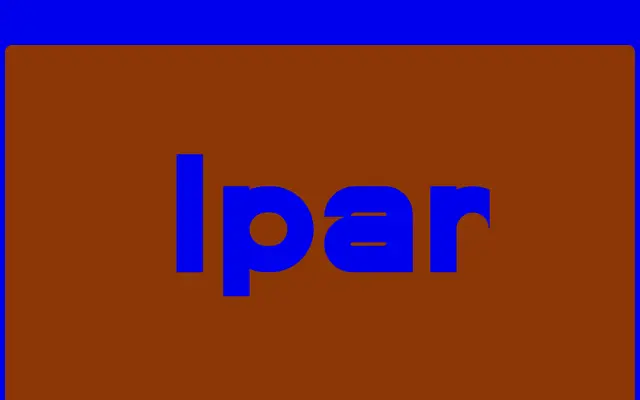
Ipar
Hungarumlaut · Adam Katyi · 2023
A mathematically constructed geometric sans in two widths and seven weights, inspired by Austrian street signage and Bauhaus geometry.
Designed by Adam Katyi between 2019 and 2021 and released in May 2023, Ipar takes uniform stem widths throughout with no optical corrections, producing a rigidly consistent, grid-like texture across the family. Austrian road and city signage, particularly the style encountered in Schladming, provided the starting point, while Bauhaus and Constructivist principles shaped the letterforms into clean geometric units. Alternate characters with rounded counter shapes are available via stylistic sets, offering some relief from the typeface's otherwise strict geometry.
Ipar is constructed on strictly mathematical principles with uniform stem widths and no optical corrections, placing it firmly in the geometric sans tradition. Its references to Bauhaus and Constructivism, alongside Austrian signage, reinforce this classification.